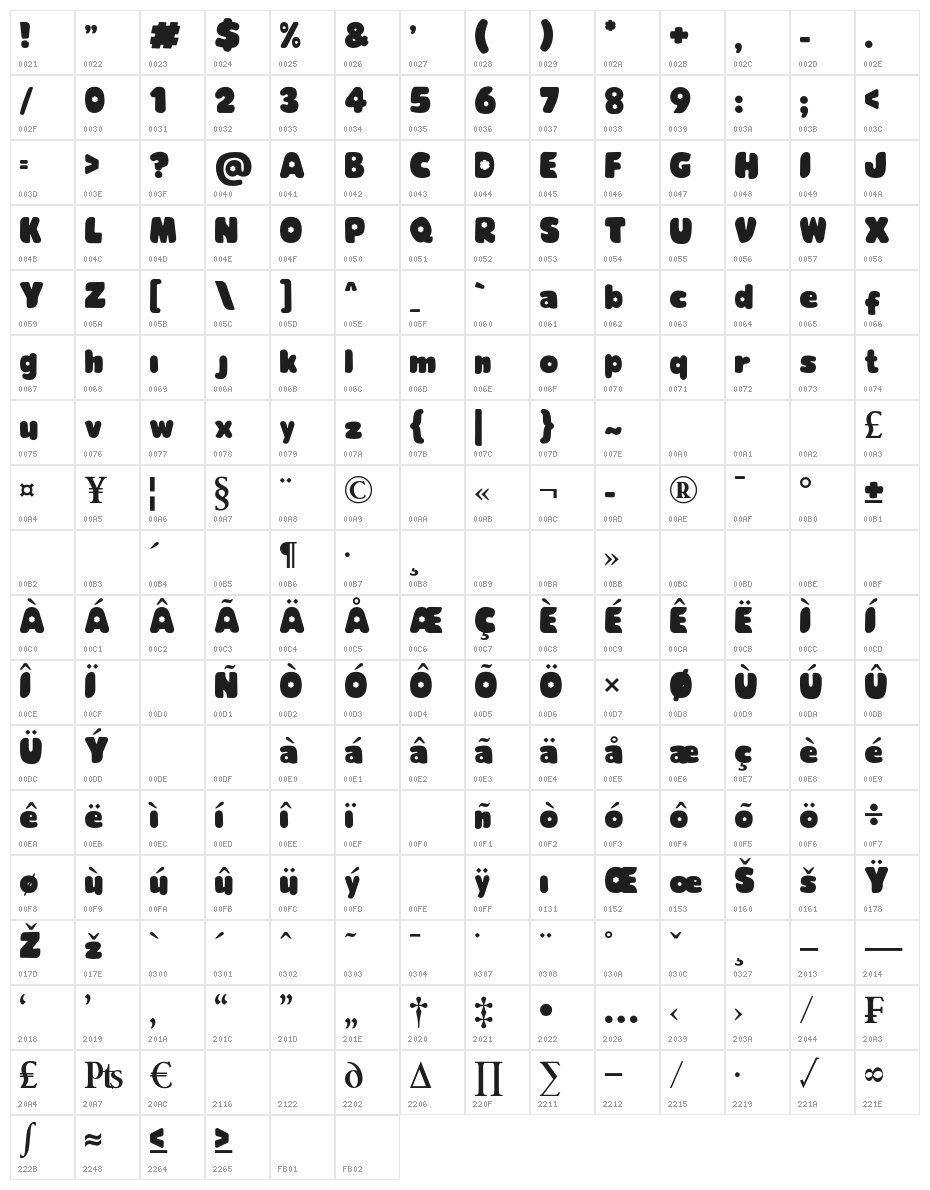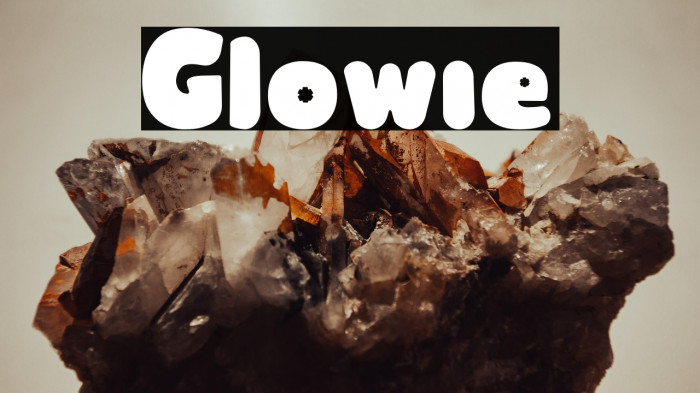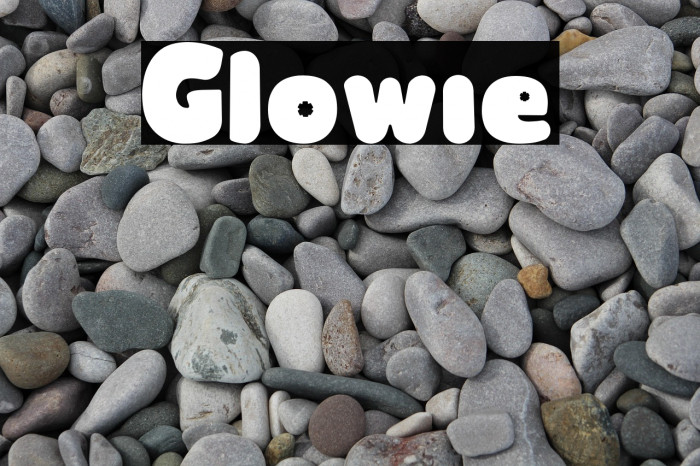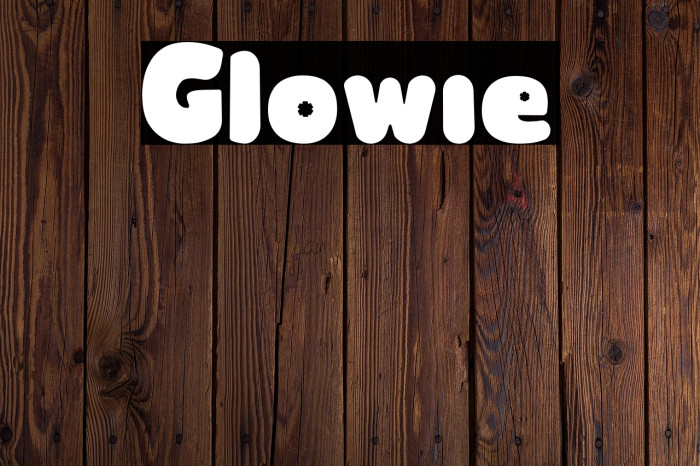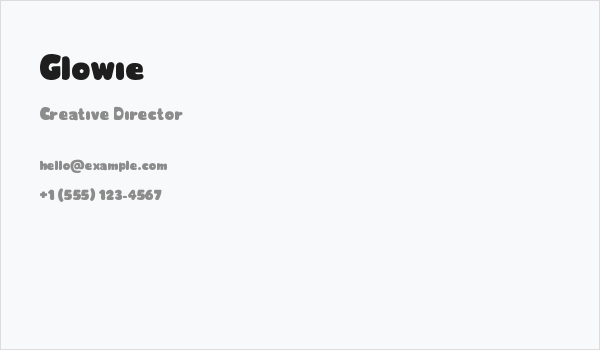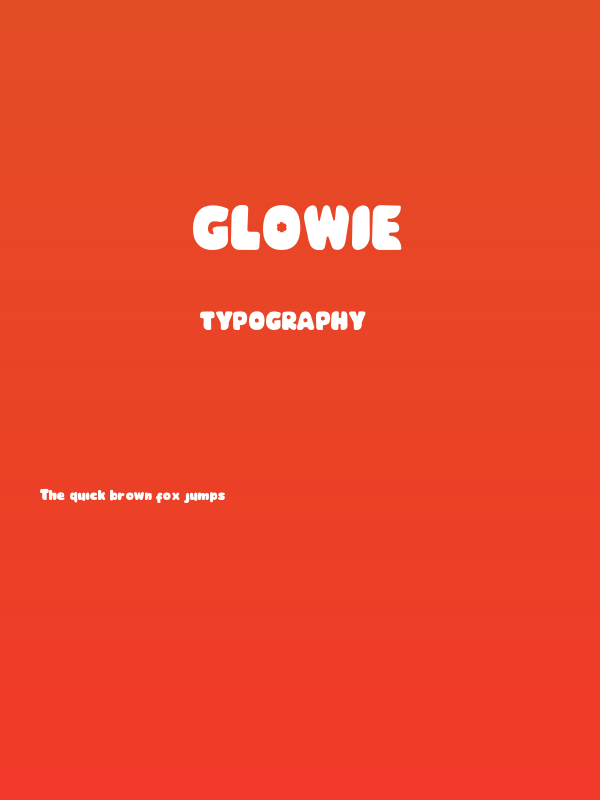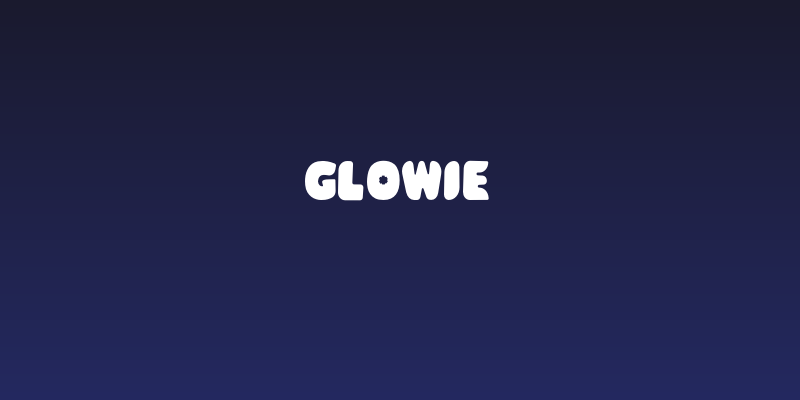
Glowie Font
Glowie Description
This playful and bold font features rounded, bubbly characters that exude a sense of fun and whimsy. The letters are thick and substantial, with a consistent stroke width that gives them a strong presence. The font includes both uppercase and lowercase letters, numerals, and a variety of special characters. Its unique style is characterized by a slightly irregular shape, adding to its charm and making it stand out. The overall appearance is friendly and approachable, making it ideal for designs that aim to capture attention and convey a sense of joy.
| Proposed Projects | Perfect for children's books, playful branding, party invitations, and eye-catching headlines. |